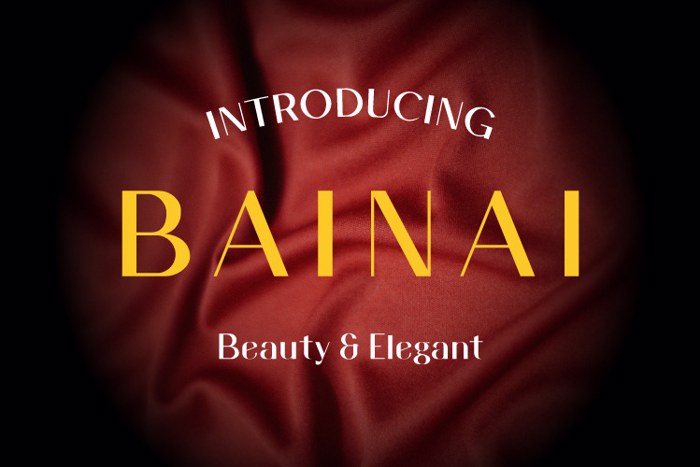
Bainai Font
Introducing, this is our latest product, we named this product Bainai Font.
Bainai Font is a modern sans serif with sweet touches and beautiful curves in each letter.
Bainai fonts are great for wedding invitations, fashion magazines, logos, signatures, and also suitable for watermark photography.